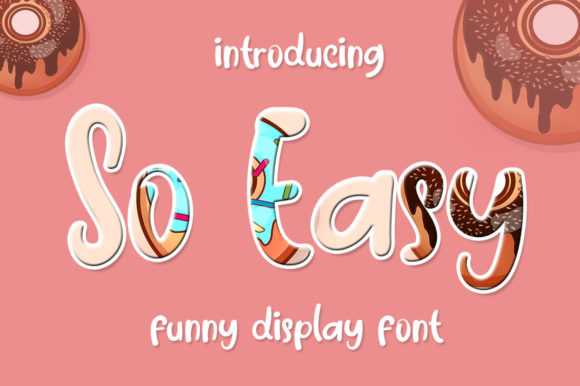
Discover the captivating charm of So Easy Font, an exquisite display font created by Mr.Soon Design. This enchanting typeface radiates a cheerful and lighthearted spirit, making it the perfect choice for designers seeking to inject a touch of playfulness into their creations.
So Easy Font exudes a vibrant energy that will elevate your designs, effortlessly capturing the attention of your audience. Its playful, yet elegant appearance makes it a perfect fit for personalizing everything from social media graphics to whimsical invitations. Imagine the delightful smiles it will evoke when used in quirky packaging or vibrant posters.